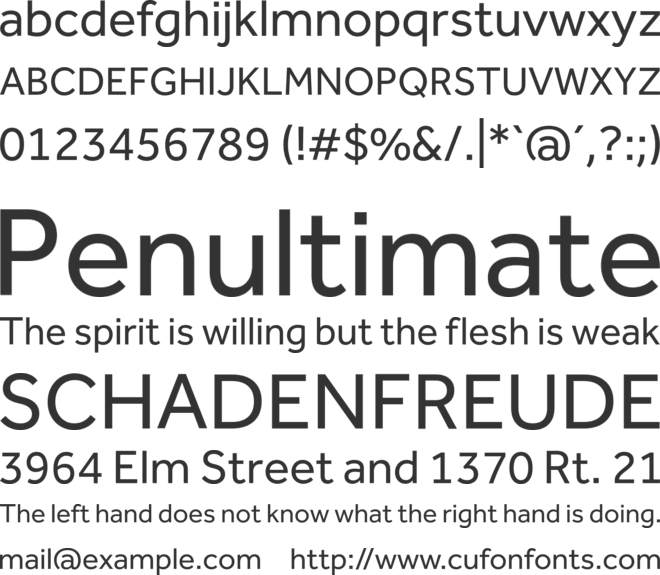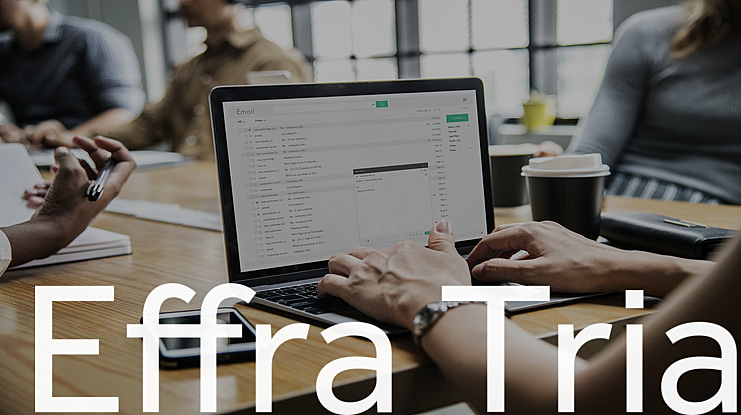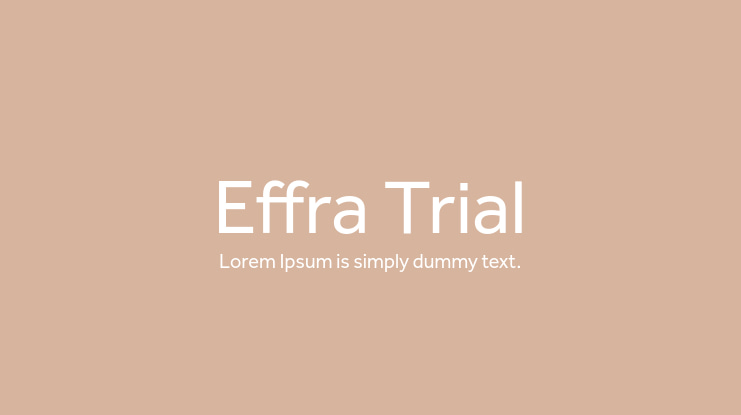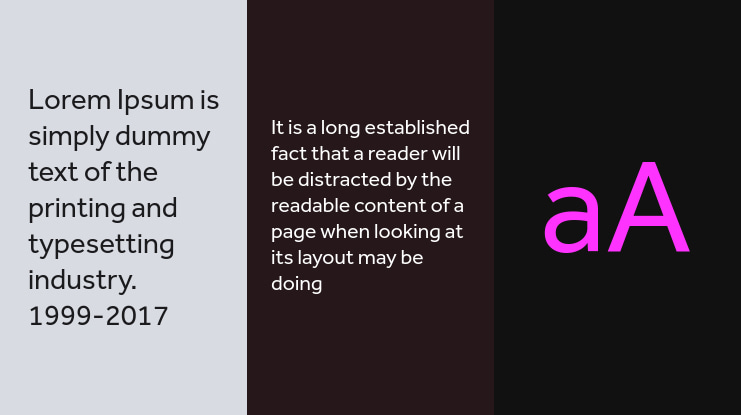
Effra Trial Font Family
Jonas Schudel and Dalton Maag Ltd
This is a multi-weight and multi-width humanist sans-serif typeface. Effra’s impressive design ancestry can be traced back to one of the earliest sans serif typeface designs, but its modern outlook, clean lines, and open character shapes make it a supremely flexible family that has become a contemporary design favourite.
Named after the river that runs through Brixton, the area of London that Dalton Maag calls home, Effra takes its inspiration from Caslon Junior, one of the earliest sans serif font designs, but is fully refreshed and refined for contemporary use. By drawing on an iconic piece of design history, Effra has a distinct personality that embraces its heritage while also sitting firmly in the digital age – an approach that earned it a Red Dot Design Award.